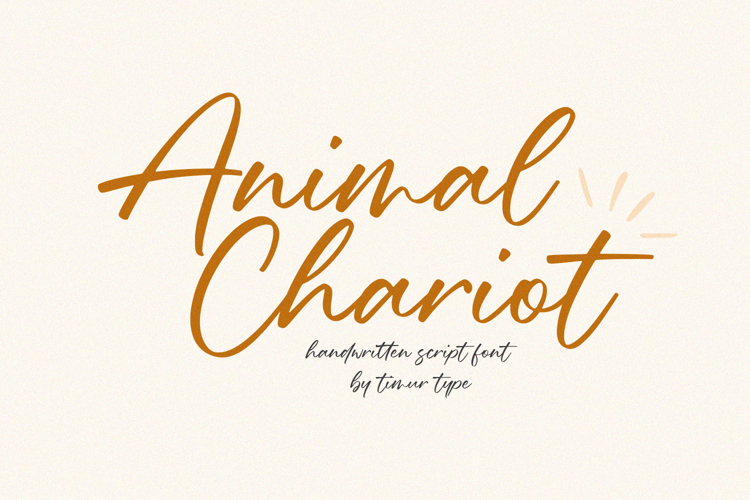
Animal Chariot Font
Animal Chariot is perfect for product packaging, branding project, megazine, social media, wedding, or just used to express words above the background.